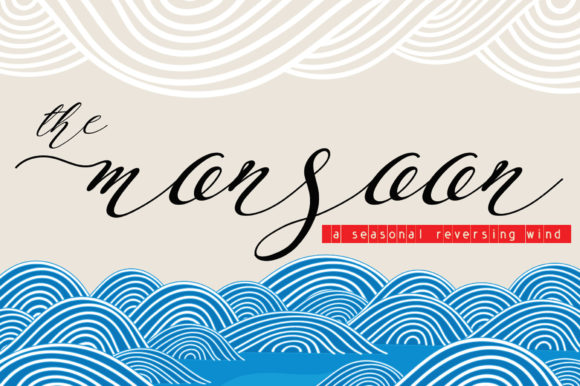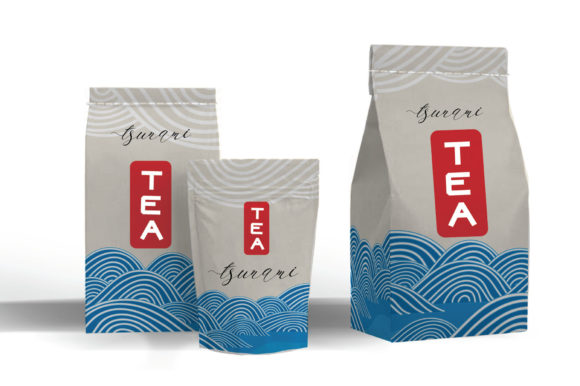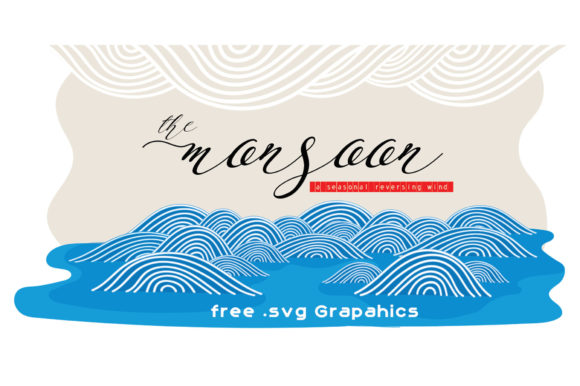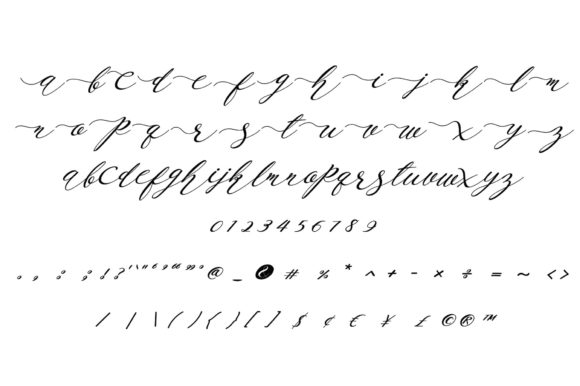
About Monsoon Font
Monsoon is a delicate and flowing script font, featuring characters that seem to dance along the baseline. Add this font to your most creative ideas, and notice how it makes them stand out!